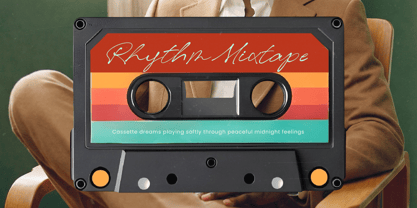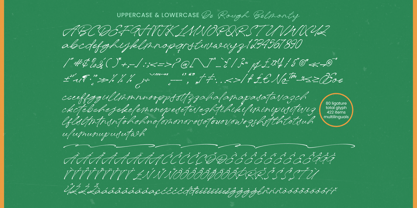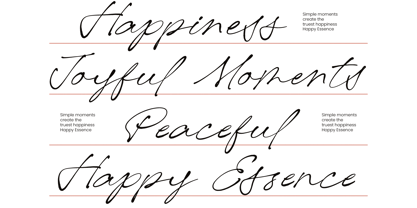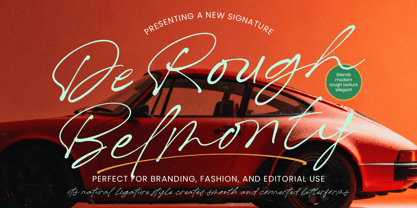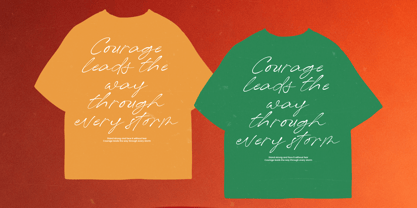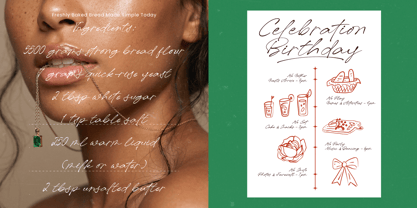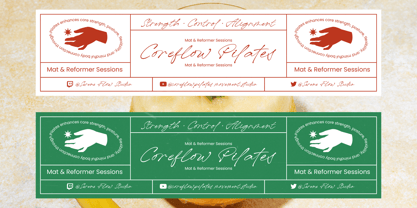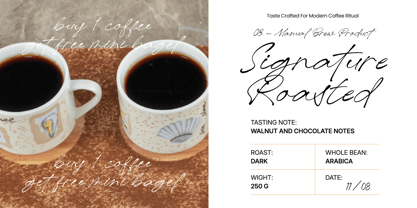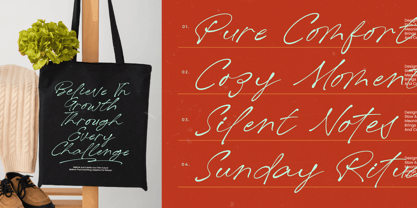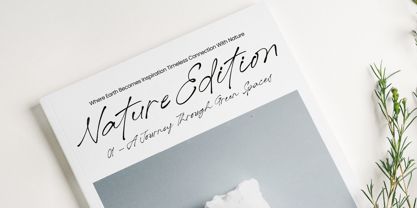
De Rough Belmonty
by Letterena Studios
The De Rough Belmonty Font Family was designed by Heru Utama Putra and published by Letterena Studios. De Rough Belmonty contains 2 styles and family package options. More about this family
De Rough Belmonty - Modern Rough Signature
Elevate your creative vision with a typeface that embodies raw elegance and authentic character through every stroke. De Rough Belmonty - Modern Rough Signature is a high-impact script designed to capture the spontaneous energy of hand-drawn calligraphy. With its textured edges and expressive motion, this font brings a sophisticated edge to any design, ensuring your message is delivered with unparalleled personality and a premium feel.